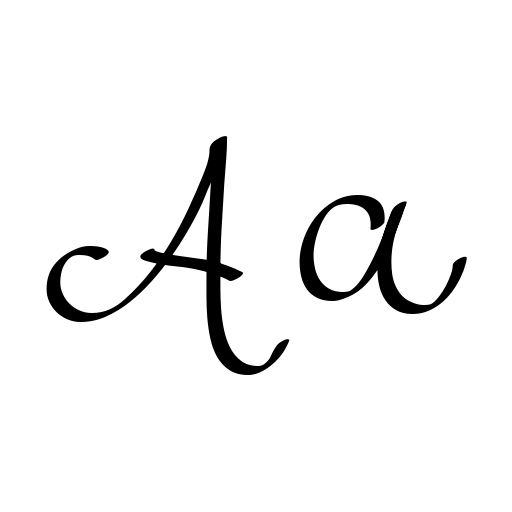
Autobiography is a delicate, handwritten script font with a light weight and elegant flow, characterized by its slender, slightly slanted letterforms and smooth, natural curves. It exudes a personal, intimate feel ideal for invitations, branding, and creative projects that seek a sophisticated yet approachable touch. This font works beautifully in logos, social media graphics, and editorial headlines where a refined, stylish script adds warmth and personality.
Autobiography Font
About Autobiography Font